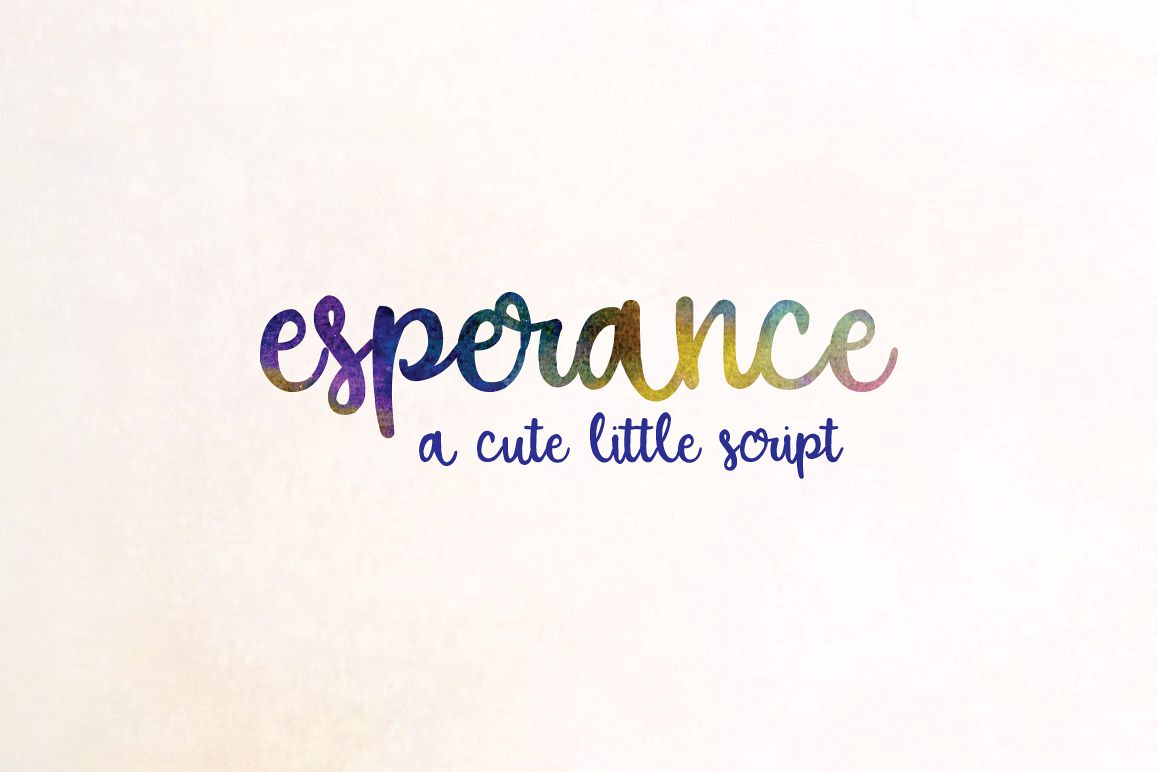
Esperance
Sweet & Simple, Esperance is the newest font from OTSS! Includes handlettered feel with multiple accents and more! CU Ok. TTF & OTF included